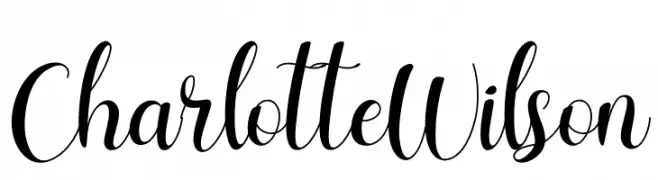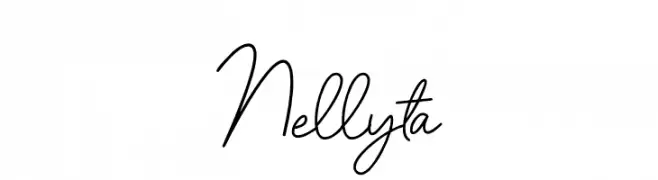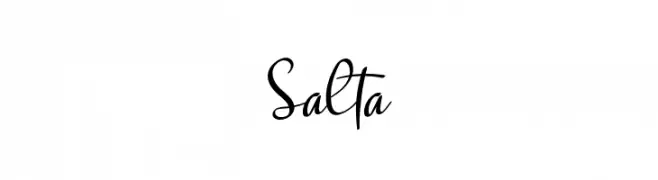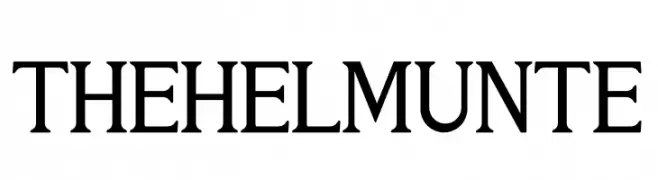
A lively, elegant script font with fluid cursive strokes and an italic slant.
A classic serif font with elegant curves and strong presence.
Elegant cursive font with a handwritten signature style.
A flowing, cursive font with elegant, interconnected letters and a handwritten aesthetic.
An elegant, high-contrast script font with decorative swashes and flourishes.
An elegant, cursive font with a handwritten style, perfect for sophisticated designs.
An elegant, flowing script font with ornate uppercase and graceful lowercase letters.
A flowing, cursive font with elegant, sweeping strokes and a modern calligraphic style.
A dynamic brush-style font with bold, expressive strokes and an artistic flair.
A classic serif font with high contrast and elegant lines.